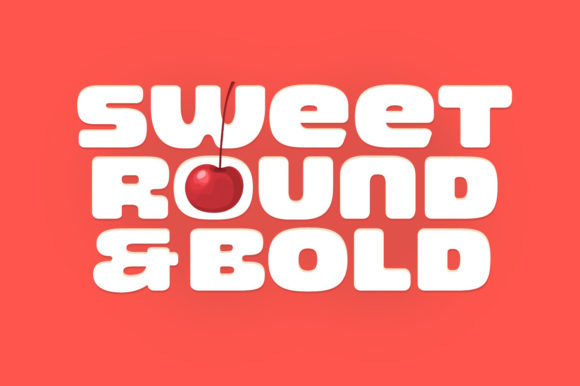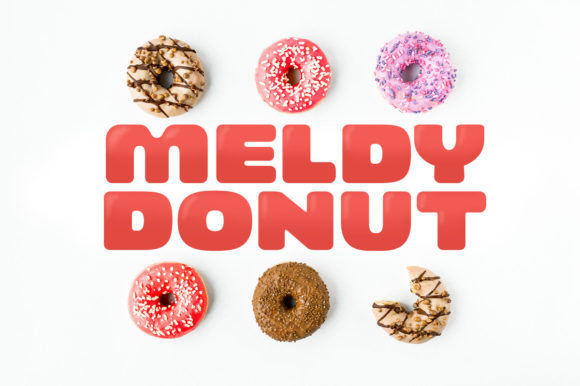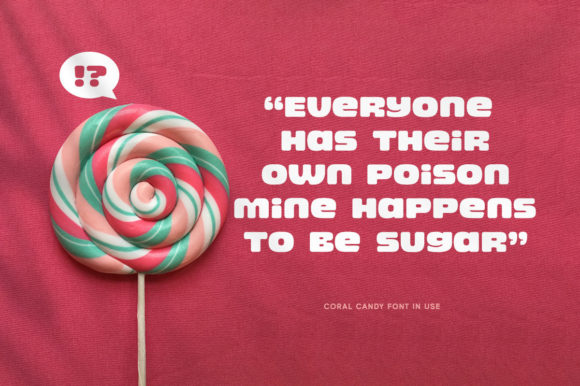
Introduction to Coral Candy Font
Coral Candy is a bold font with fun and playful looks.
This type of font is perfectly made to be applied especially in cartoon or child themes which needs a standout font, and the other various formal forms such as invitations, labels, logos, magazines, books, greeting/wedding cards, packaging, fashion, makeup, stationery, novels, labels or any type of advertising purpose This font is PUA encoded which means you can access all of the amazing glyphs and ligatures with ease.